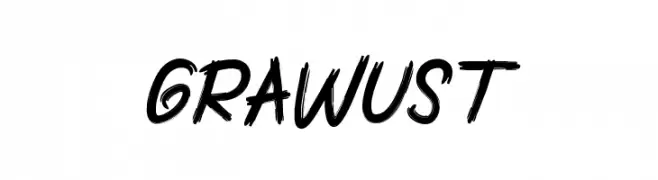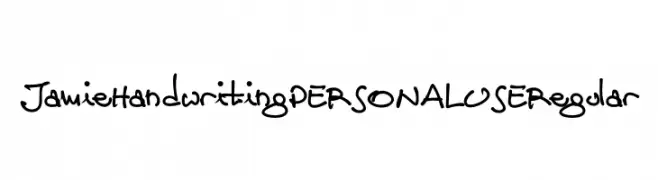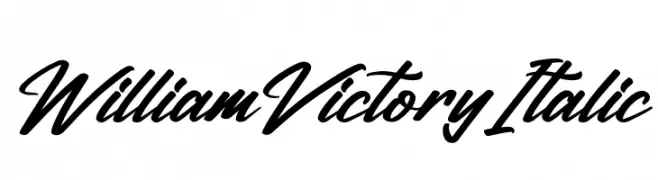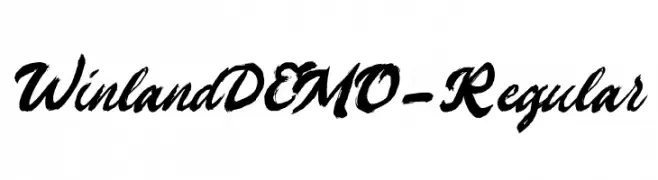
A modern, elegant script font with fluid, cursive strokes and a handwritten feel.
A bold, expressive brush-style font with dynamic, hand-painted strokes.
A bold, italicized cursive script with a dynamic and fluid style.
A lively and expressive handwritten font with fluid strokes and a modern aesthetic.
A bold, expressive brush script font with dynamic strokes and artistic flair.
A fluid, elegant handwritten font with a natural cursive style.
A dynamic brush script font with an energetic, hand-drawn style.
A bold, dynamic brush script font with a hand-drawn appearance.
A playful, casual handwritten font with smooth, flowing lines and slightly irregular letterforms.
A bold, handwritten font with a dynamic and playful style.